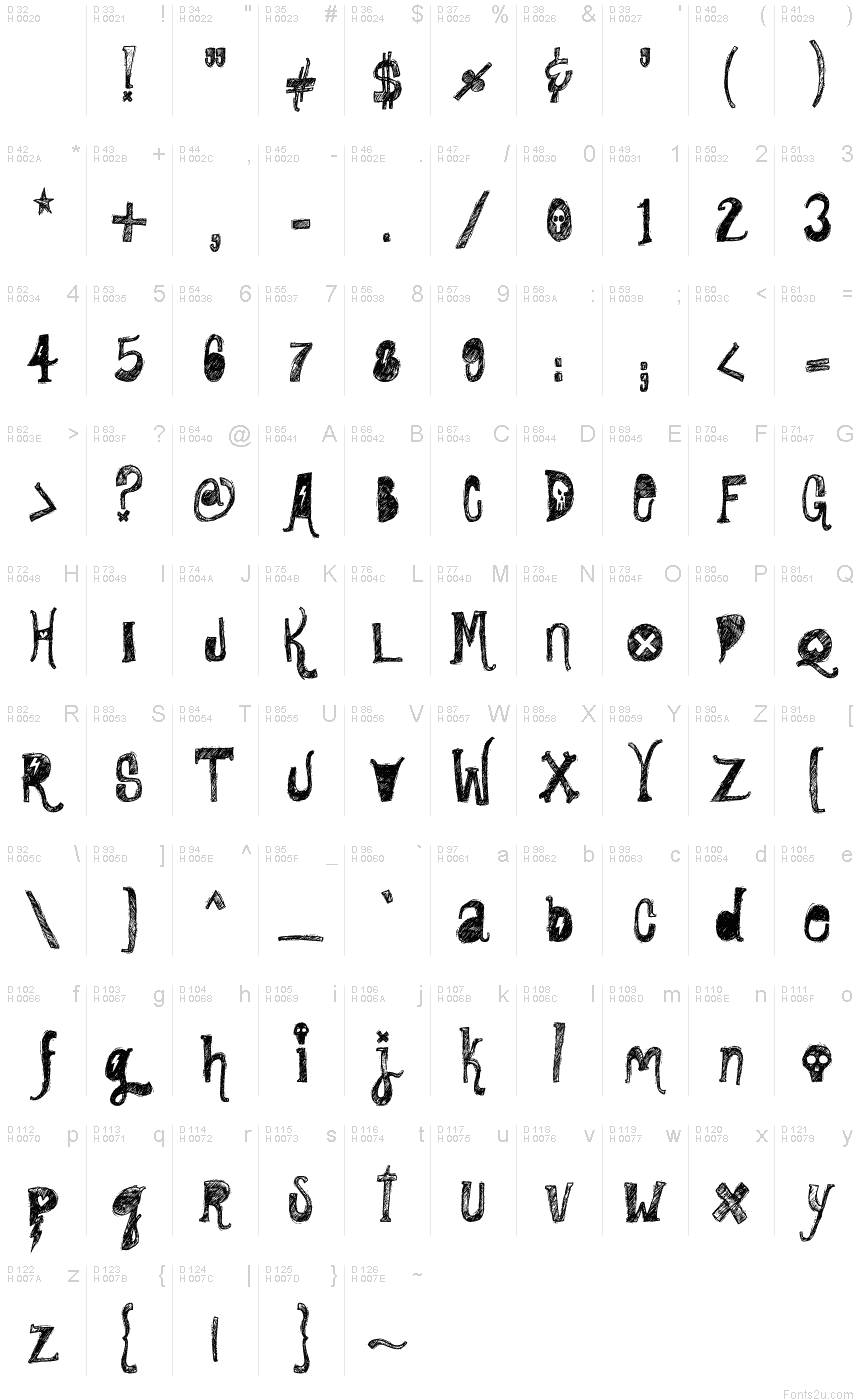
Rock Show Whiplash by Last Soundtrack is a free hand-drawn horror display font with the scrappy energy of a photocopied gig flyer. Its letters wobble and curl like they were sketched in a rush with a felt-tip, then roughed up with scratchy shading, while the skull dropped into the wordmark pushes the whole thing toward punk, metal, and B-movie macabre.
That makes this free font a natural fit for band posters, mixtape covers, zine mastheads, Halloween flyers, and title cards that need a little menace without looking slick. It also works for short merch slogans or logo-like wordmarks, because the loose outlines and skull motif give even a few letters the feel of a hand-made emblem.